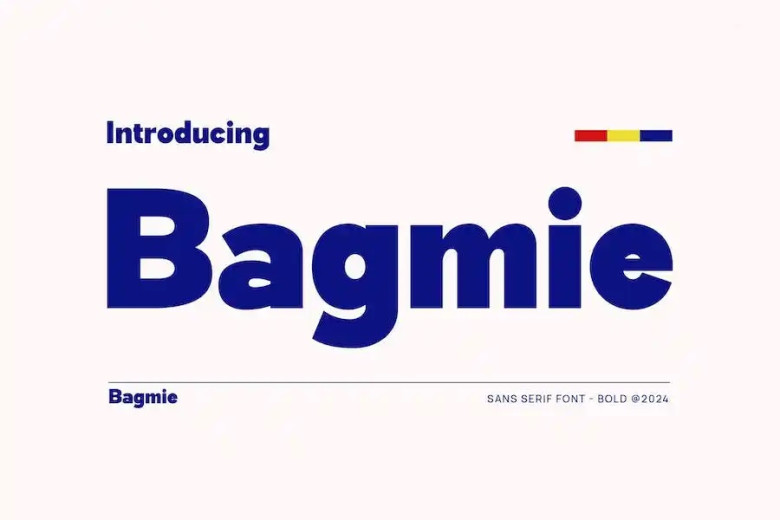
Bagmie Font
Bagmie Font, an elegant modern sans serif font suitable for logos, brand invitations, magazines, packaging of products and much more.
Bagmie Sans Serif Font